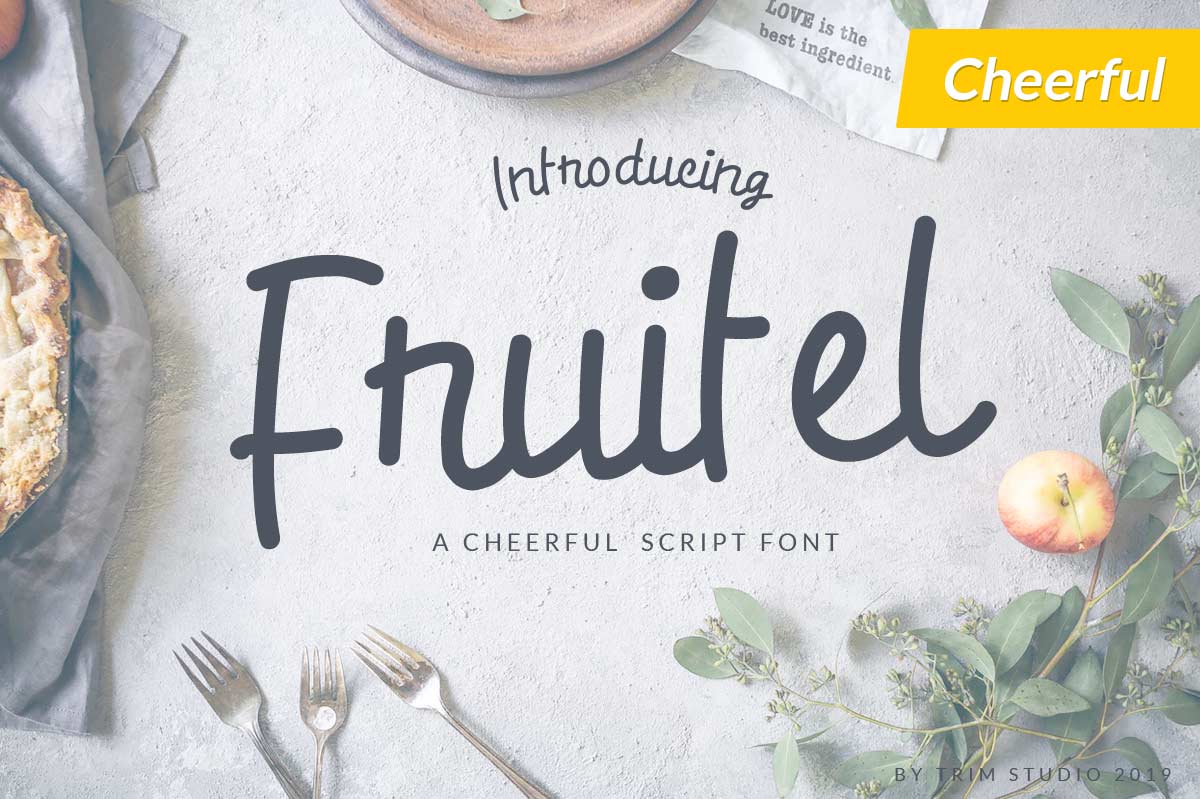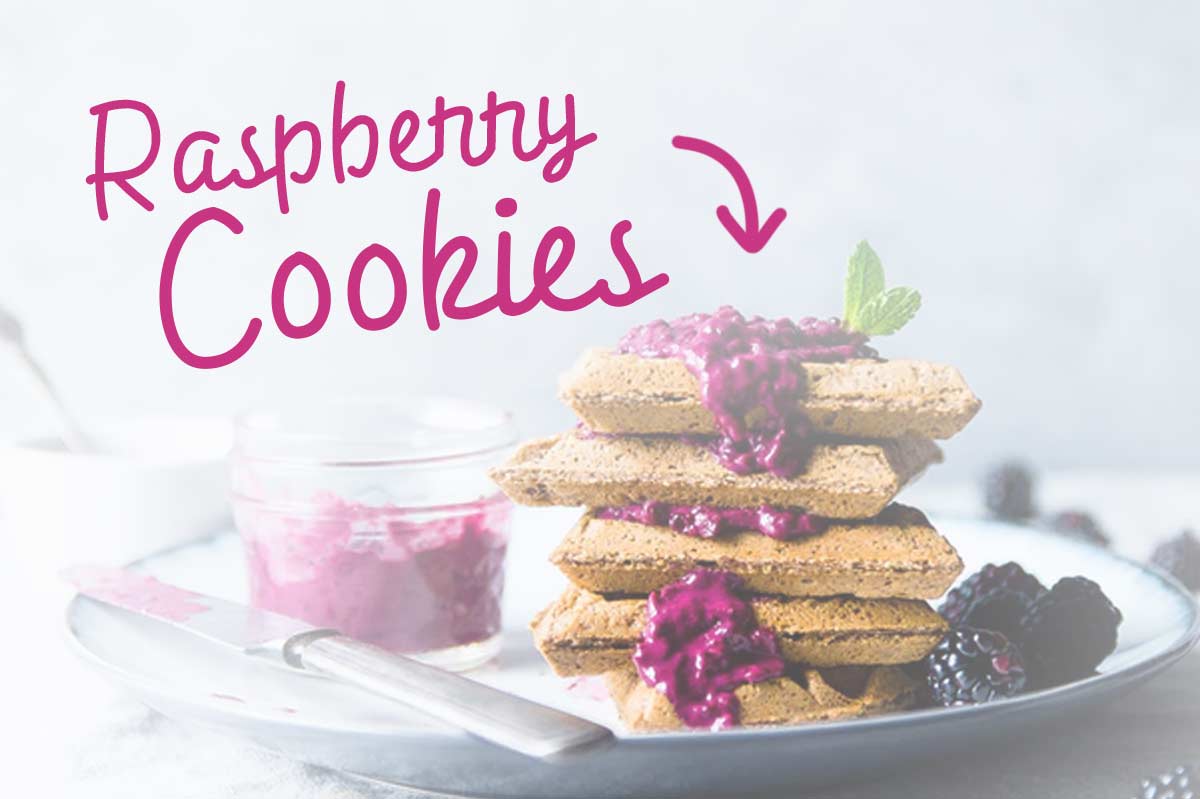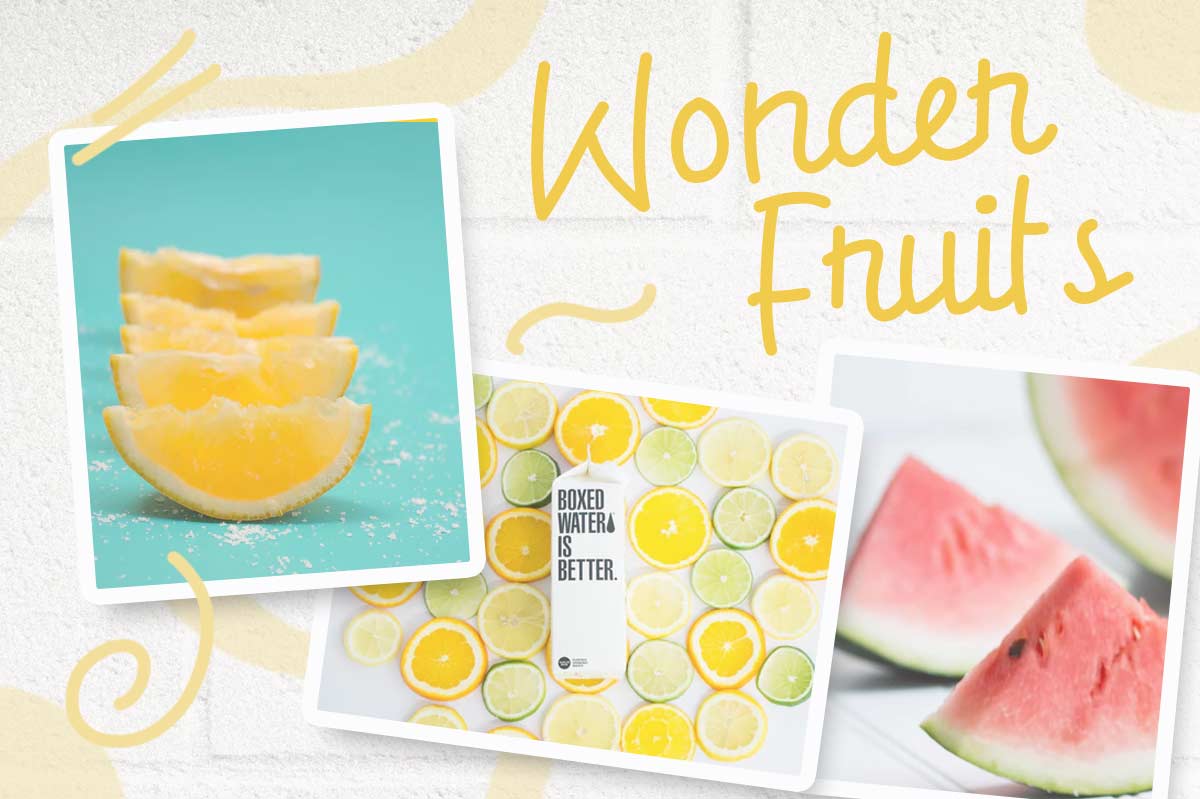
Fruitel Cheerful Script Font
Fruitel Cheerful Script Font is an interesting fun handwritten font that will help you create unique design projects. Use this font to create wedding invitations, cards, flyers, prints, and more. If you want to use it for commercial work please buy the full version.